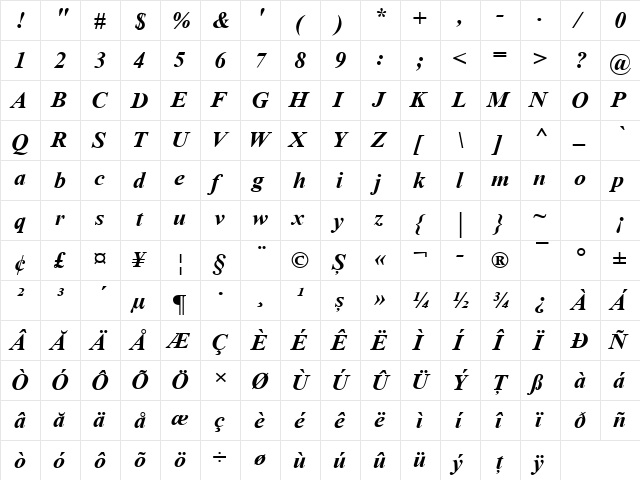
Turn W Bold Italic
Design Context for Turn W Typeface
Turn W is a composed and adaptable typeface that performs quietly and consistently across a wide range of design contexts. The dynamic lean of this cut emphasises speed and emphasis in any layout. Its bold stroke weight gives it real presence on the page.
Pro Tip: Try Turn W for annotation and caption copy alongside an upright companion — the contrast in angle creates a dynamic but ordered typographic system.